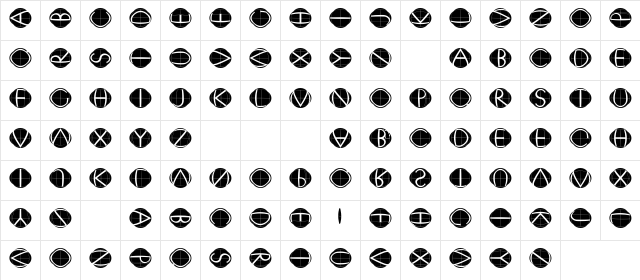
XperimentypoFour Round
Style: Round
Design Context for XperimentypoFour
XperimentypoFour softens its letterforms with rounded terminals, giving it an approachable, friendly quality that works well in consumer-facing and digital contexts.
Font Pairing: Pairs well with a rounded or humanist sans for body copy, maintaining the friendly tone without relying on XperimentypoFour to carry extended reading.
Pro Tip: Use XperimentypoFour for UI elements, app interfaces, and anywhere a friendly, approachable tone needs to be maintained without sacrificing clarity.